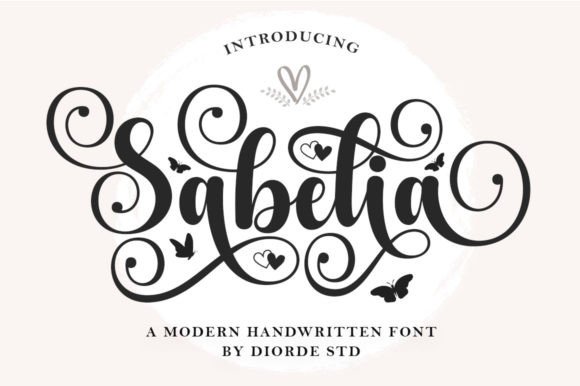
Unveil the Sabelia Font: A Romantic Dance of Letters That Will Hypnotize Your Senses
Embrace the beauty of Sabelia, a script font family that exudes romance and sweetness. Its characters, like graceful dancers, sway and twirl along the baseline, creating a visual symphony that captivates the eyes. With its effortless elegance and casual charm, Sabelia adds a touch of sophistication and playfulness to any design project.
Immerse yourself in the world of Sabelia, where letters transform into art. Each character is meticulously crafted to convey a sense of warmth and joy, making it the perfect choice for adding a personal touch to your creative endeavors. Whether you're designing invitations, crafting logos, or creating social media posts, Sabelia's enchanting presence will leave a lasting impression.
Indulge in the versatility of Sabelia, a font that effortlessly adapts to a myriad of applications. Its graceful lines and delicate curves lend themselves beautifully to wedding invitations, branding projects, and handwritten notes. Elevate your digital correspondence with Sabelia's elegant touch, transforming your emails into works of art. Unleash your creativity and explore the endless possibilities that await you with this captivating font.
As you journey through the Sabelia collection, you'll discover a treasure trove of typographic wonders. From the flowing strokes of the regular font to the playful charm of the alternate characters, Sabelia offers a diverse range of options to suit your every design need. Experiment with different letter combinations and discover the hidden beauty that lies within this enchanting font family.
With Sabelia by your side, you'll embark on a creative adventure that knows no bounds. Its captivating allure will enchant your audience, leaving them spellbound by the sheer elegance and charm of your designs. Embrace the magic of Sabelia and let your creativity soar to new heights.